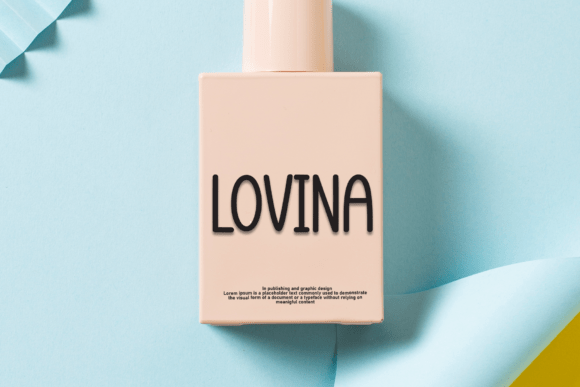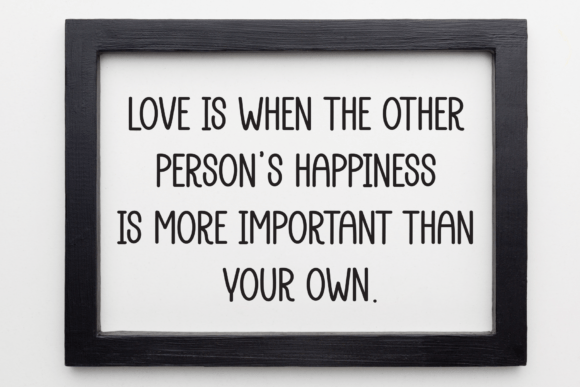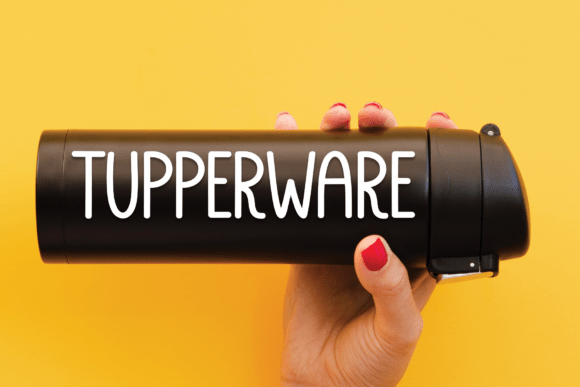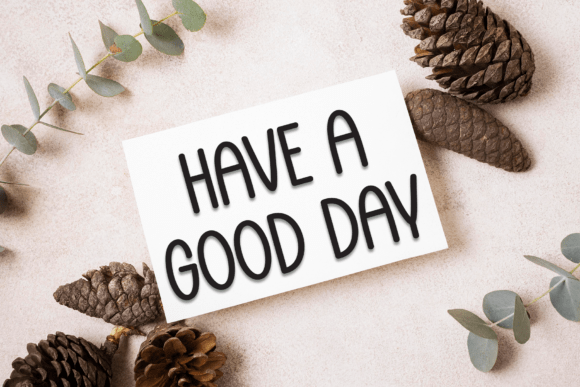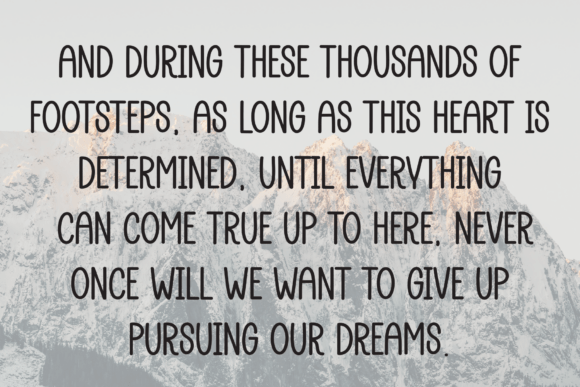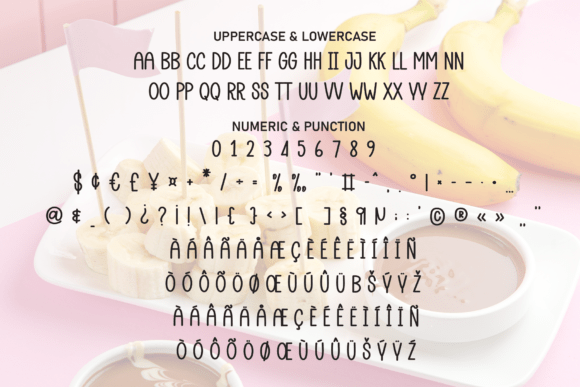
Easter Banana Font: The Sweetest Addition to Your Design Collection
Are you looking for a font that can add a touch of whimsy and charm to your designs? Look no further than the Easter Banana Font! This handwritten display font is strikingly sweet and delightfully friendly, making it perfect for a variety of design projects, from wedding invitations and cards to party decorations and more.
The Allure of Easter Banana Font
Crafted with an irresistible charm, the Easter Banana Font is sure to capture the hearts of designers and crafters alike. Its unique and playful style brings a fun twist to any design, transporting your audience to a world of whimsical delight with every alphabetic expression. Whether you’re looking to create a custom wedding invitation, a festive Easter card, or a fun party decoration, this font is sure to be a hit.
One of the standout features of the Easter Banana Font is its suitability for wedding invitations and cards. Its sweet and charming style makes it perfect for couples looking to add a touch of personality to their wedding stationery. Imagine setting the tone for your special day with a custom wedding invitation that features a playful and whimsical font – it’s sure to get your guests excited for the celebration!
A Unique and Fun Twist on Traditional Fonts
What sets the Easter Banana Font apart from other fonts is its unique and playful style. Unlike traditional fonts that can be stiff and formal, this font brings a sense of fun and whimsy to any design. Its handwritten style gives it a personal and approachable feel, making it perfect for designers and crafters who want to add a touch of personality to their work.
Key Features of Easter Banana Font
- Handwritten display font: The Easter Banana Font is a handwritten display font that features a unique and playful style.
- Sweet and charming: This font is strikingly sweet and delightfully friendly, making it perfect for a variety of design projects.
- Perfect for wedding invitations and cards: The Easter Banana Font is a great choice for couples looking to add a touch of personality to their wedding stationery.
- Unique and fun twist: This font brings a fun twist to traditional fonts, making it perfect for designers and crafters who want to add a touch of whimsy to their work.
Tips for Using Easter Banana Font
Here are a few tips for using the Easter Banana Font in your designs:
- Pair with complementary fonts: To create a visually appealing design, pair the Easter Banana Font with complementary fonts that share a similar style or theme.
- Use for headings and titles: The Easter Banana Font is perfect for headings and titles, where its playful style can really shine.
- Experiment with colors and textures: To add an extra layer of depth and interest to your design, experiment with different colors and textures that complement the Easter Banana Font.
In conclusion, the Easter Banana Font is a sweet and charming addition to any design collection. Its unique and playful style makes it perfect for a variety of design projects, from wedding invitations and cards to party decorations and more. Whether you’re a designer or crafter looking to add a touch of whimsy to your work, this font is sure to delight. So why not give it a try and see the magic for yourself?